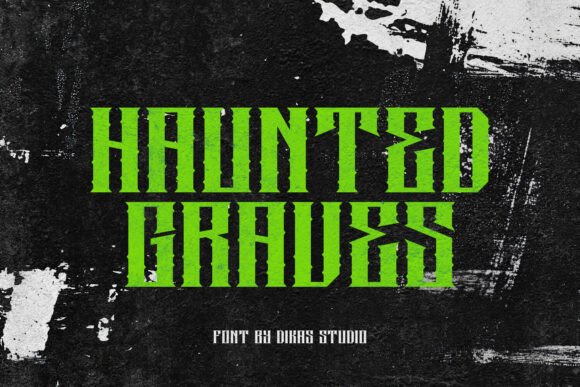
Unleash the Terror: Exploring the Haunted Graves Font and its Sharp Spiked Font
The world of typography is vast and diverse, offering a plethora of fonts to suit various design needs. Among these, the Haunted Graves Font and its sharp spiked variant stand out for their unique, chilling aesthetic. Designed to evoke fear and suspense, these fonts have become a go-to choice for horror-themed projects, adding a menacing, haunted feel to any design. In this article, we’ll delve into the characteristics, applications, and benefits of the Haunted Graves Font and its sharp spiked version, exploring how they can elevate your designs to new, spine-tingling heights.
What is Haunted Graves Font?
Haunted Graves is a boxy, angular font characterized by its sharp, spiked characters. This distinctive design gives the font a menacing edge, perfect for creating an atmosphere of fear and suspense. The font’s unique aesthetic is reminiscent of haunted mansions, creepy cemeteries, and other spooky settings, making it an ideal choice for horror-themed projects.
The Haunted Graves Font features:
- Boxy, angular design: A bold, geometric shape that gives the font its distinctive look.
- Sharp, spiked characters: Adding a chilling edge to the font, these spikes bring a sense of danger and fear.
- Perfect for horror-themed projects: Whether it’s for posters, titles, or spooky branding, Haunted Graves is the ideal choice.
Applications of Haunted Graves Font
The Haunted Graves Font and its sharp spiked variant have a wide range of applications, including:
- Horror movie posters: Create eye-catching, terrifying posters that grab attention.
- Spooky branding: Give your brand a haunted, mysterious feel that sets it apart.
- Creepy titles: Add a chilling touch to your titles, making them unforgettable.
- Halloween-themed designs: Perfect for creating spooky, festive designs for Halloween.
- Gothic and horror-themed designs: Ideal for designs that require a dark, mysterious aesthetic.
Benefits of Using Haunted Graves Font
Using the Haunted Graves Font and its sharp spiked variant offers several benefits, including:
- Unique aesthetic: Stand out from the crowd with a distinctive, eye-catching font.
- Atmosphere creation: Easily create an atmosphere of fear and suspense with this font.
- Versatility: Suitable for various design projects, from posters to branding.
Tips and Tricks for Using Haunted Graves Font
To get the most out of the Haunted Graves Font and its sharp spiked variant, consider the following tips:
- Experiment with colors: Try different color schemes to enhance the font’s menacing effect.
- Combine with images: Pair the font with creepy images to create a chilling atmosphere.
- Adjust font size: Play with font sizes to create visual interest and emphasize certain elements.
- Add effects: Experiment with effects like shadows, gradients, or textures to add depth to the font.
In conclusion, the Haunted Graves Font and its sharp spiked variant are perfect for designers looking to add a chilling edge to their work. With its unique aesthetic, versatility, and ease of use, this font is ideal for horror-themed projects, spooky branding, and creepy titles. By following the tips and tricks outlined above, you can unleash the terror of the Haunted Graves Font and take your designs to new, spine-tingling heights.